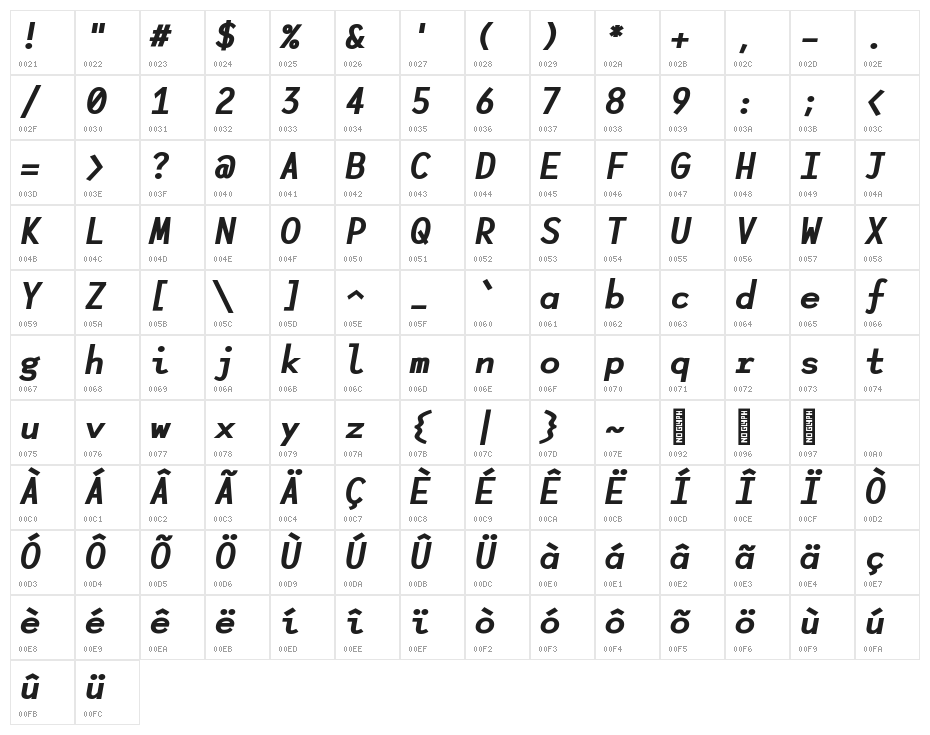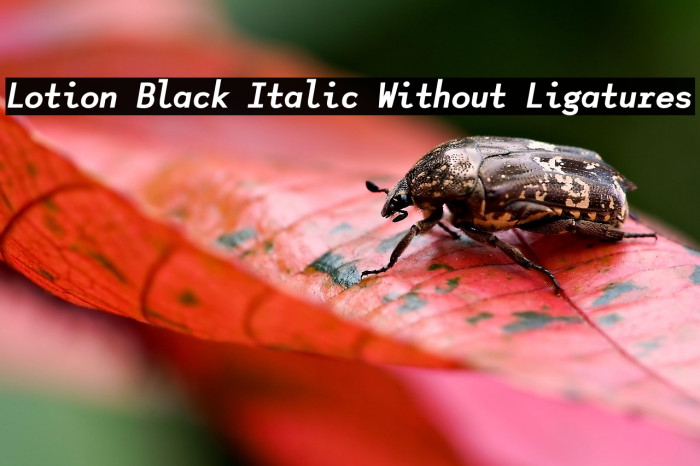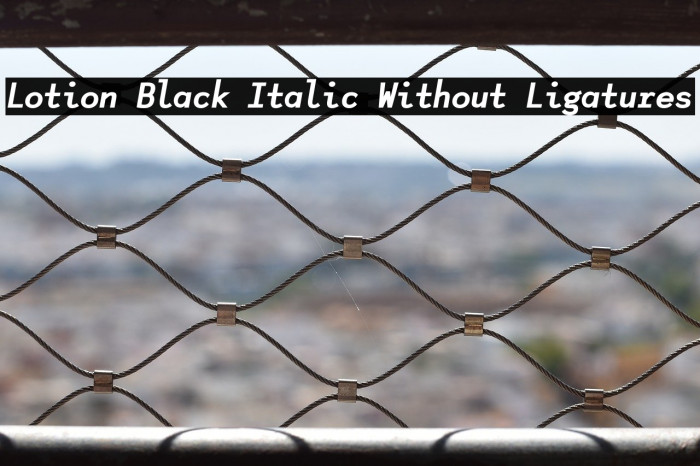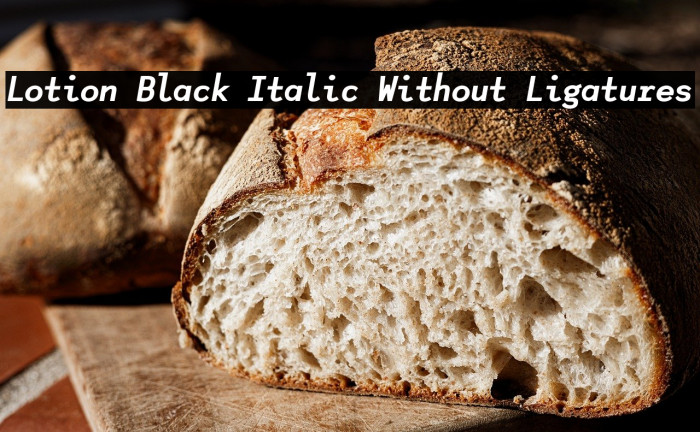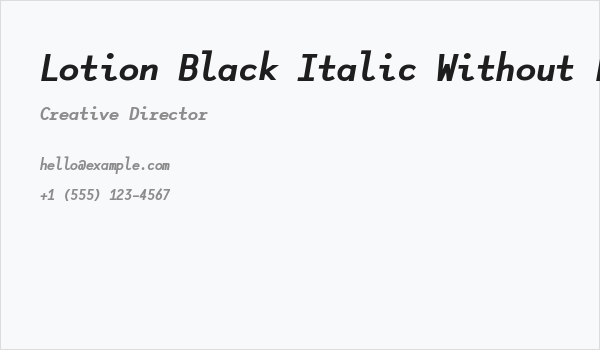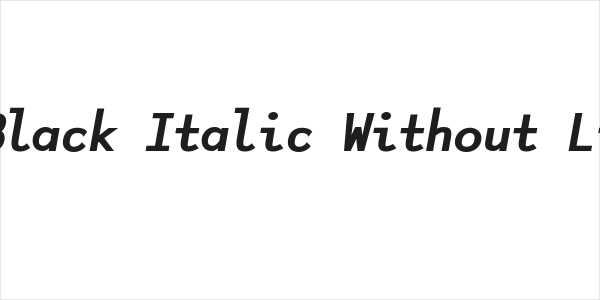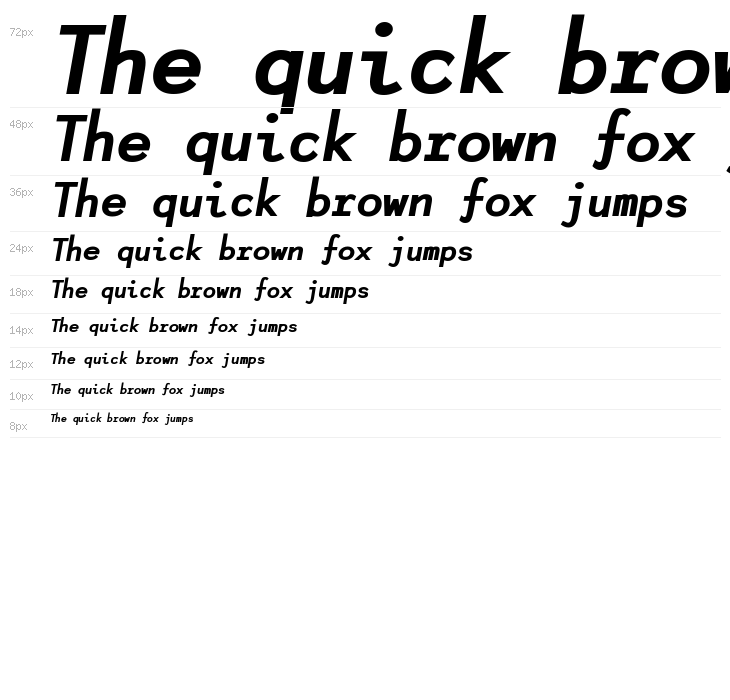
Lotion Black Italic Without Ligatures Font
Lotion Black Italic Without Ligatures Description
This font features a bold and italicized style, characterized by its strong, slanted letterforms that convey a sense of dynamism and energy. The uppercase and lowercase letters are designed with a consistent stroke weight, providing a cohesive appearance. The numbers and special characters maintain the same boldness, ensuring uniformity across all glyphs. The absence of ligatures gives the font a straightforward and clean look, making it versatile for various design applications. The italic angle adds a touch of elegance, while the bold weight ensures readability and impact.
| Use Case | Headlines, Logos, Advertising |
| Proposed Projects | Ideal for branding, advertising, headlines, and any project requiring a bold and dynamic typeface. |